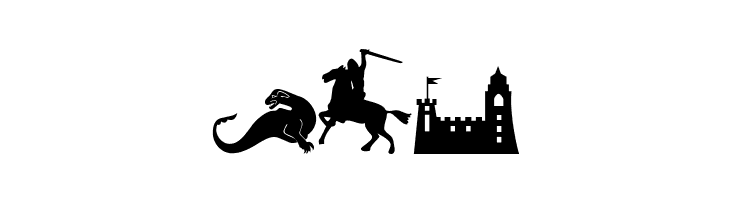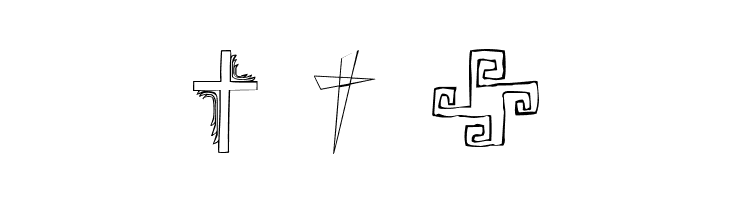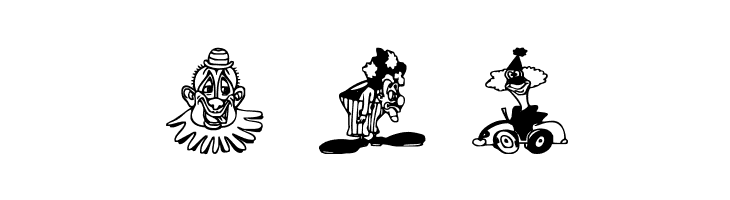
Medieval-themed dingbat font with detailed silhouette illustrations.
A symbol font with diverse Christian cross designs and religious motifs.
An ornate, Art Nouveau-inspired decorative font featuring intricate illustrations of women.
Hand-drawn WWI soldier illustrations form each character.
Illustrative font with fantasy-themed scenes for each character.
Silhouette dingbat font with spy and action motifs.
A geometric pictogram icon set for Olympic sports and symbols.